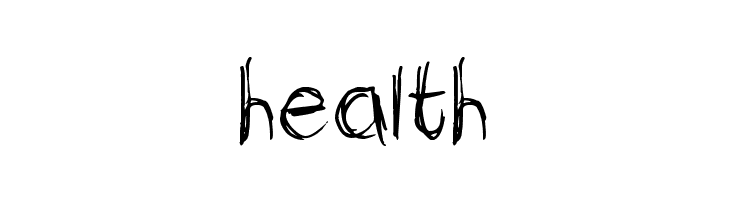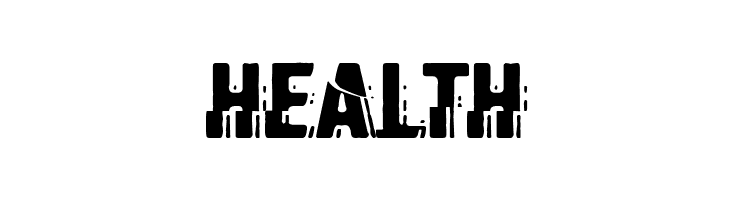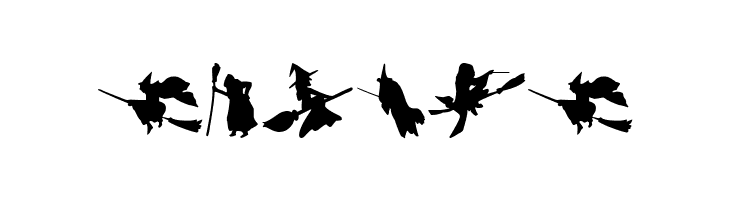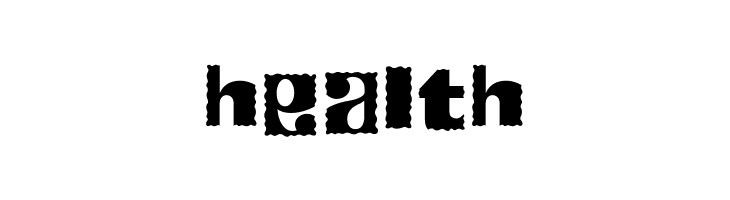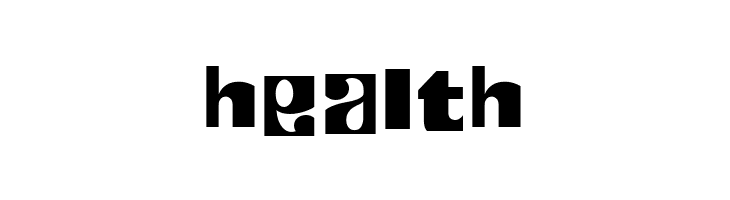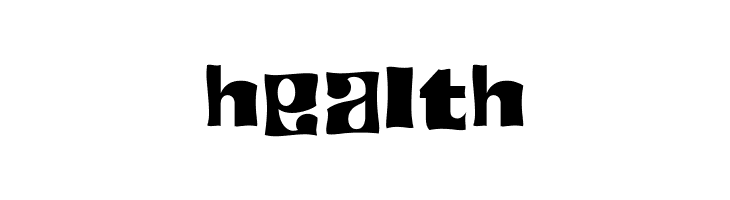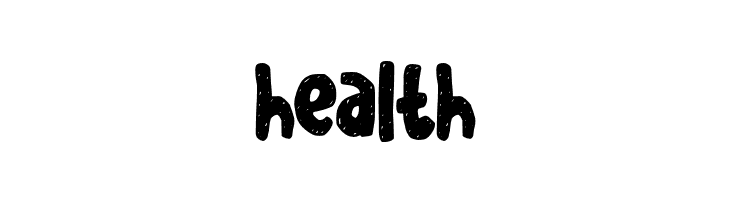
A playful and decorative font designed with matchstick-inspired characters.
A bold, distressed font with a glitch effect for an edgy look.
Whimsical witch and magic-themed decorative icon font.
A bold, playful font with rounded, whimsical characters.
A playful, stitched font with a handcrafted, textured appearance.
A bold, rugged font with a patchwork, handcrafted appearance.
A bold, geometric font with a patchwork design and high contrast.
A bold, patchwork-style font with dynamic, irregular shapes.
A bold, sketchy font with a snowy texture and playful, hand-drawn style.